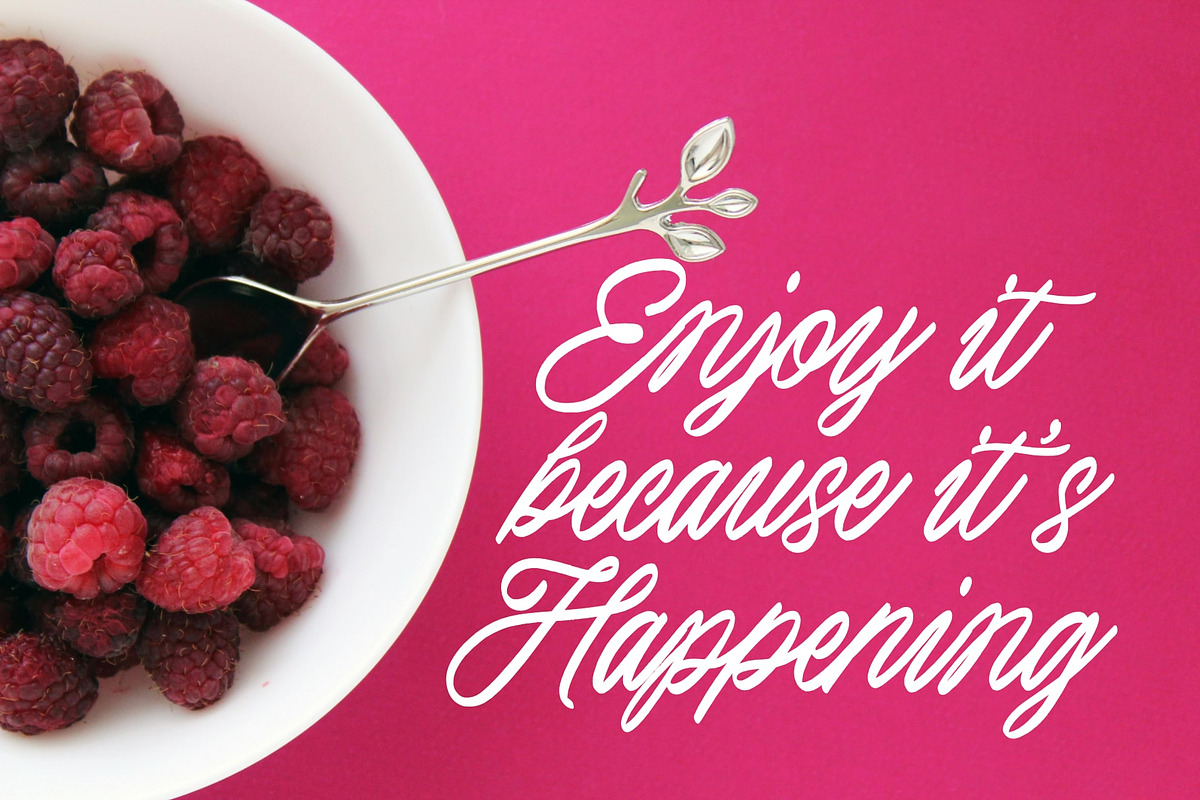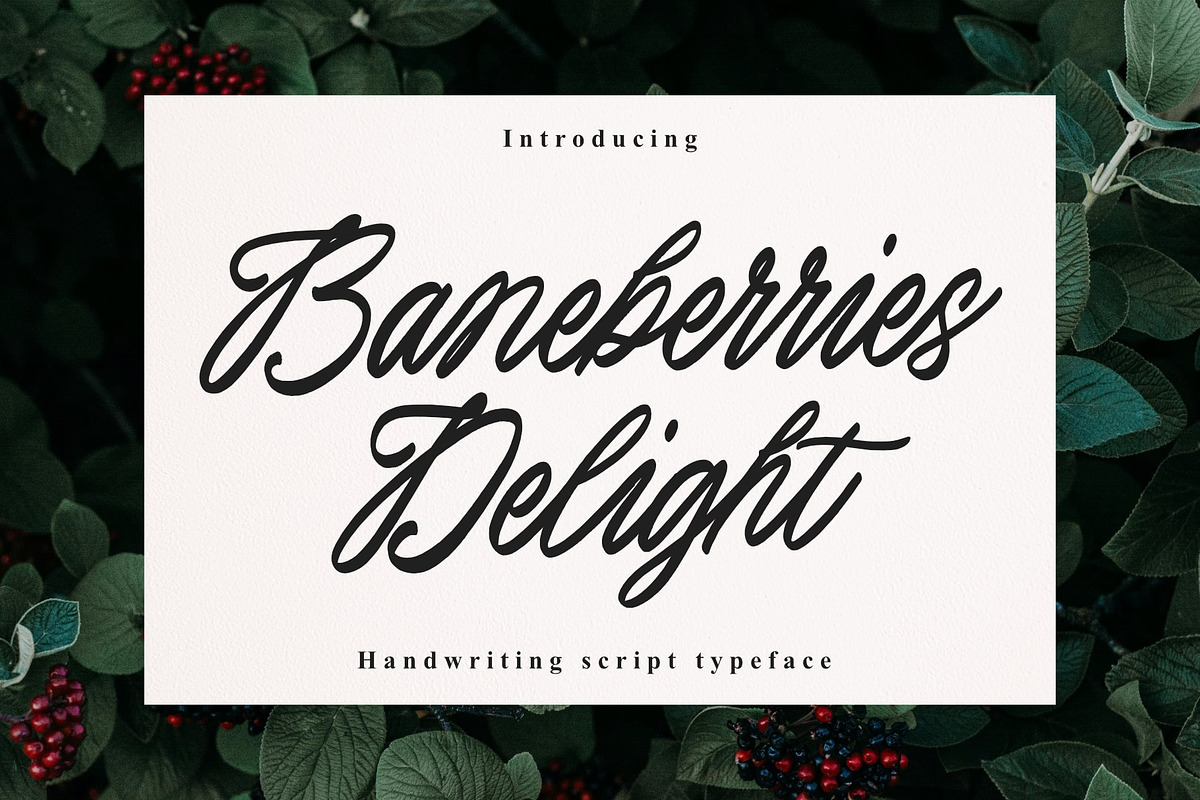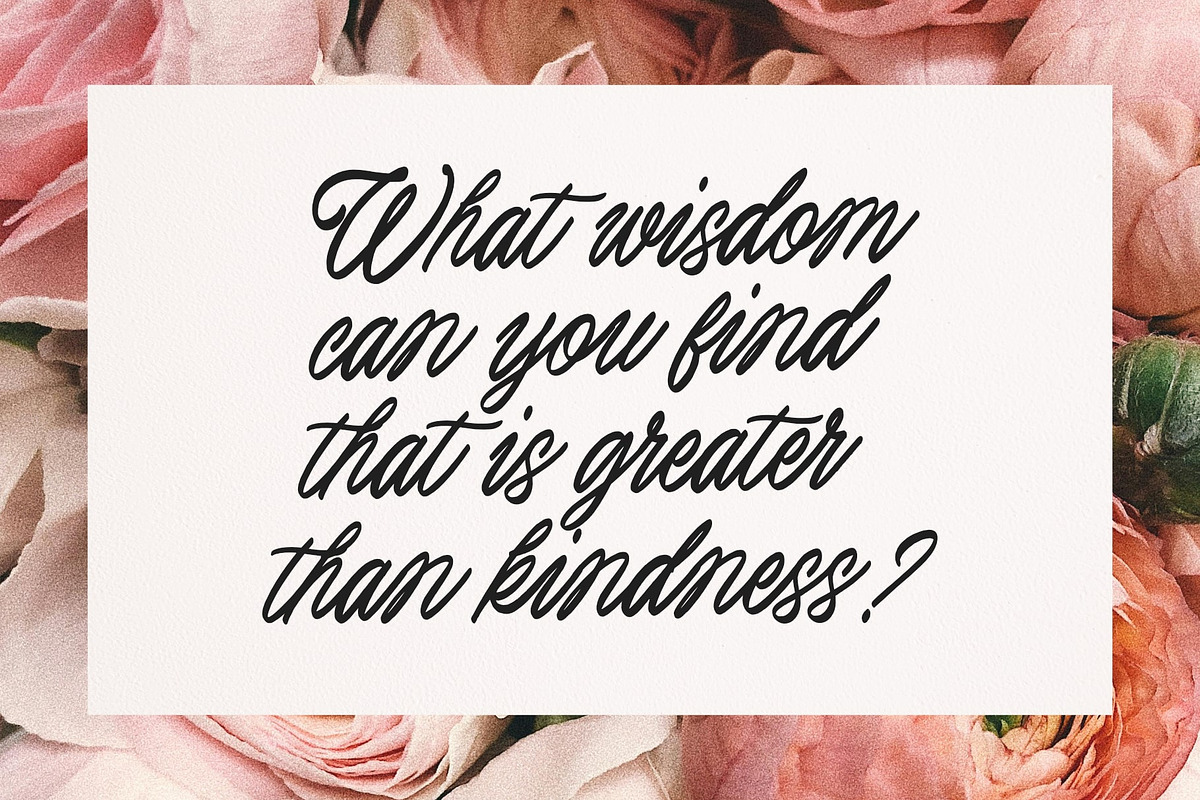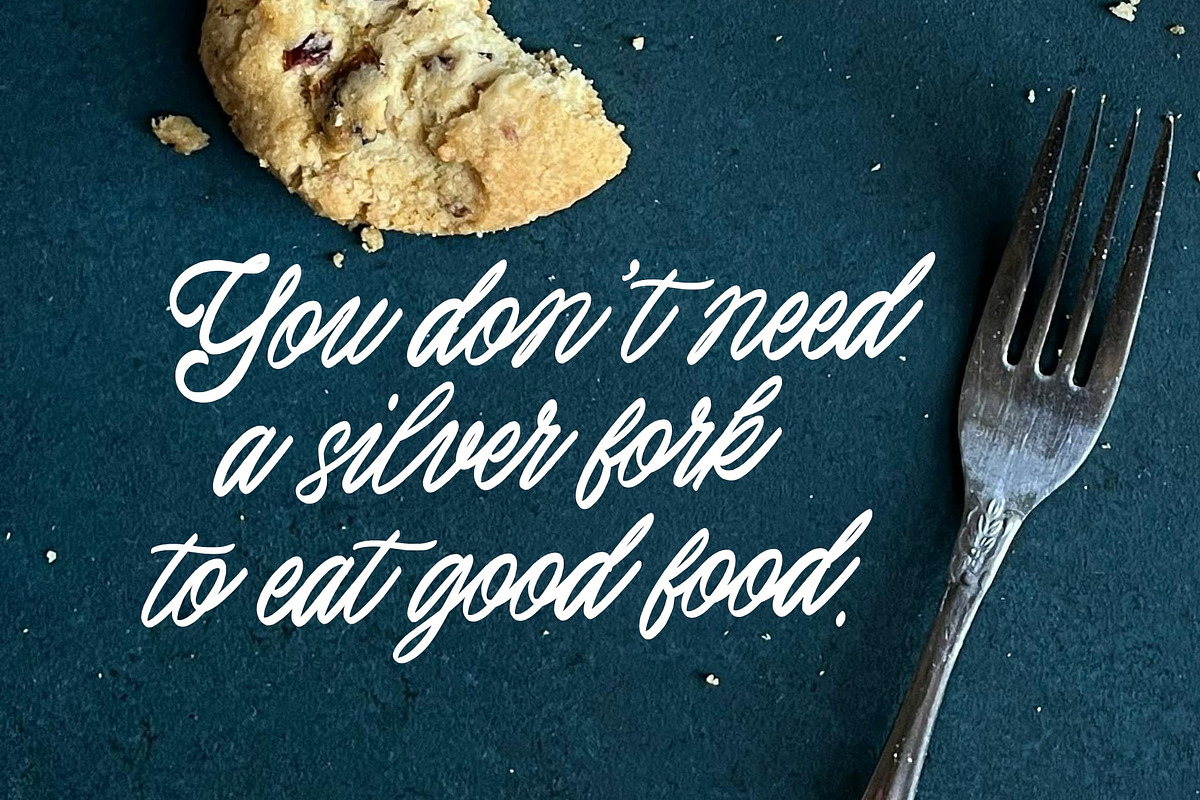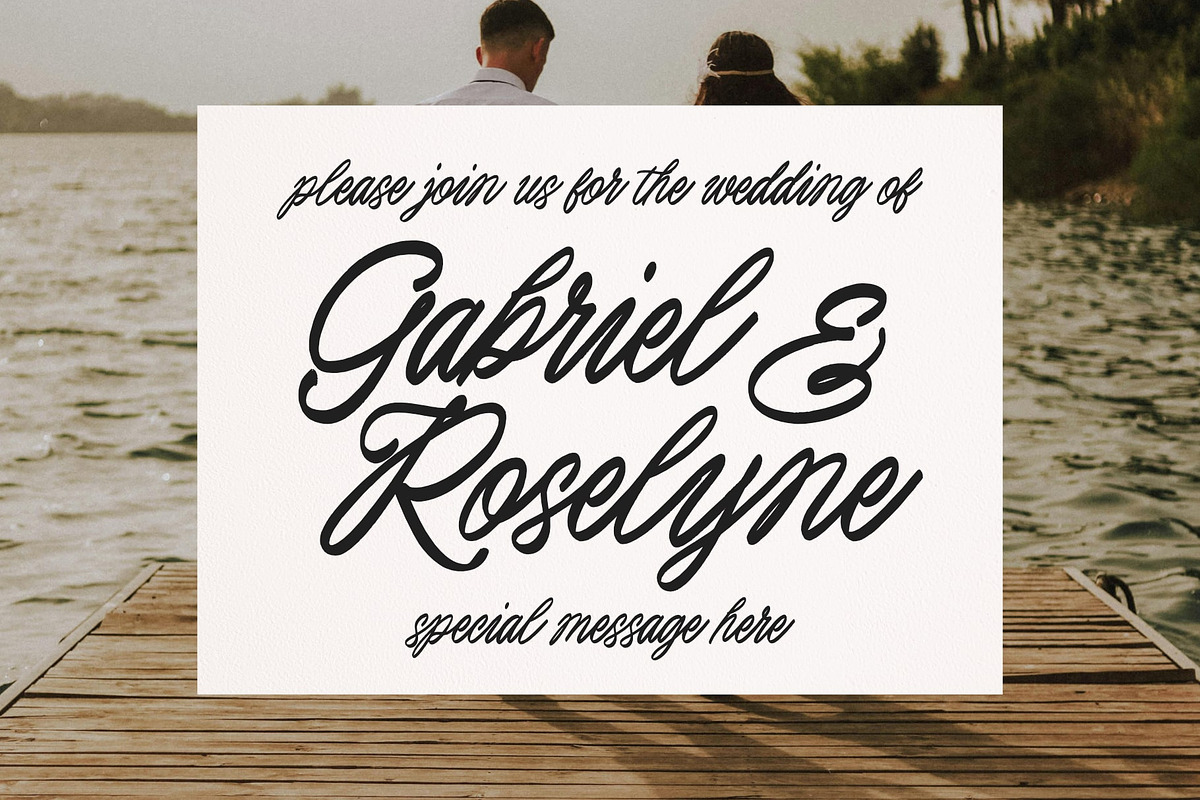
Baneberries Delight Handwriting
Baneberries Delight is an enchanting handwriting beauty script typeface that combines elegance with a touch of whimsy. With its flowing, hand-drawn strokes and refined curves, this font captures the natural grace and charm of handwritten calligraphy, bringing a sense of warmth and personal touch to any design. Perfect for projects that seek both sophistication and playfulness, Baneberries Delight is ideal for adding a unique and delicate flair.